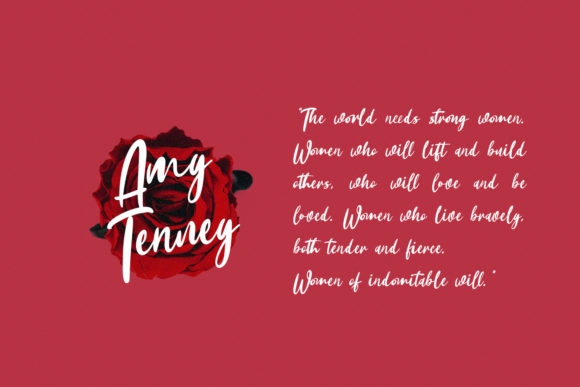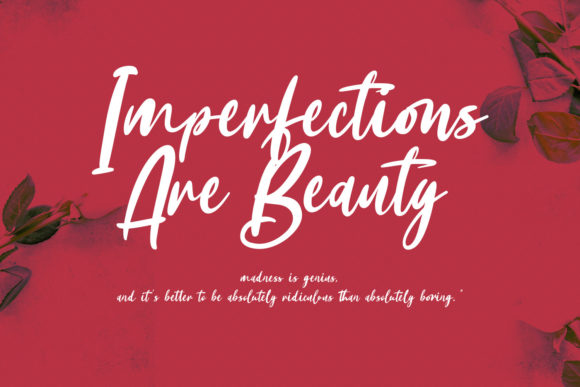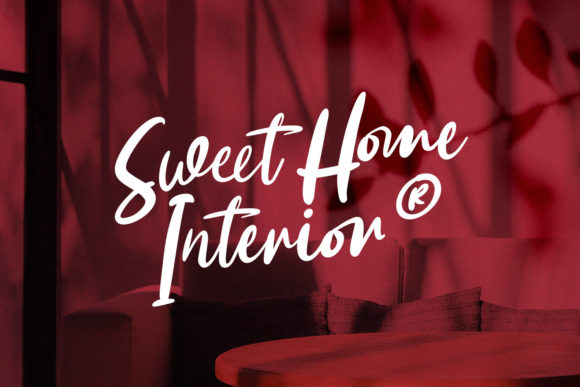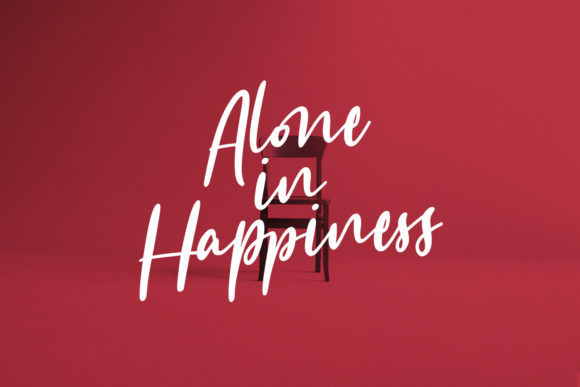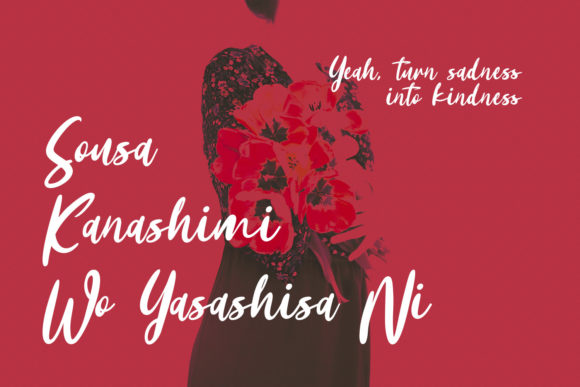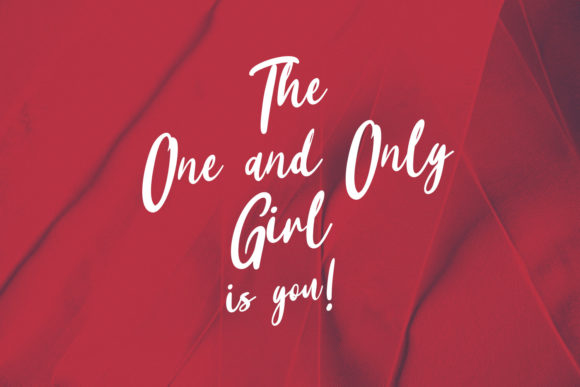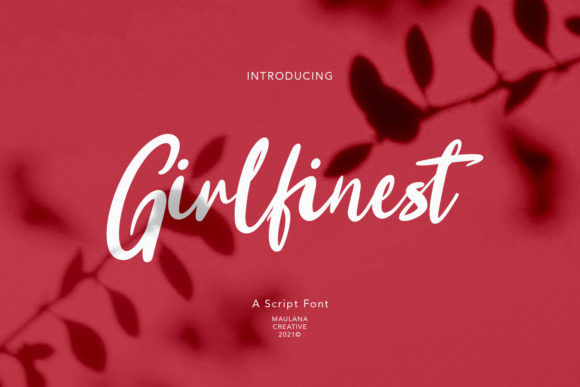
Discover the Charm of Girlfinest Font: Elevate Your Designs with a Lovely Handwritten Style
Are you on the hunt for a font that adds a personal touch to your designs? Look no further than Girlfinest Font, a beautiful handwritten font that is sure to capture the hearts of designers and crafters alike. With its well-rounded characters and cozy, friendly style, Girlfinest is the perfect choice for a wide range of projects, from branding and packaging to invitations and crafts.
The Characteristics of Girlfinest Font
Girlfinest Font boasts a unique and charming aesthetic that sets it apart from other fonts. Its well-rounded characters give it a soft, approachable feel, while its handwritten style adds a touch of warmth and personality. The font’s cozy and friendly vibe makes it perfect for designs that require a personal and intimate feel, such as:
- Branding and packaging for small businesses or personal projects
- DIY crafts and handmade products
- Blogging and social media graphics
Why Choose Girlfinest Font?
So, what makes Girlfinest Font a great choice for designers and crafters? Here are just a few reasons why:
- Versatility: Girlfinest Font is suitable for a wide range of projects and designs, making it a great addition to any designer’s toolkit.
- Uniqueness: With its handwritten style and well-rounded characters, Girlfinest Font is sure to add a touch of personality to your designs.
- Ease of use: Girlfinest Font is easy to read and works well in a variety of sizes, making it perfect for both digital and print designs.
- Customizability: As a digital font, Girlfinest can be easily customized to fit your design needs, from adjusting the size and color to adding effects and textures.
Tips for Using Girlfinest Font
To get the most out of Girlfinest Font, here are a few tips to keep in mind:
- Pair it with other fonts: Girlfinest Font works well when paired with other fonts, such as sans-serif fonts for a modern contrast or script fonts for added elegance.
- Experiment with colors: The soft, friendly vibe of Girlfinest Font makes it perfect for a wide range of colors, from pastels and brights to neutrals and metallics.
- Add texture and effects: To give your designs an extra boost, try adding texture or effects to Girlfinest Font, such as subtle shading or a distressed finish.
In conclusion, Girlfinest Font is a lovely handwritten font that is sure to become a favorite among designers and crafters. With its well-rounded characters, cozy and friendly style, and versatility, Girlfinest is perfect for a wide range of projects and designs. Whether you’re looking to add a personal touch to your branding, create beautiful invitations, or craft unique DIY projects, Girlfinest Font is the perfect choice. So why wait? Download Girlfinest Font today and start elevating your designs with its charming, handwritten style!
- Lovely handwritten font
- Well-rounded characters
- Cozy and friendly style
- Suitable for a wide range of projects and designs
- Easy to read and customize
Recommended for:
- Designers looking for a unique and versatile font
- Crafters and DIY enthusiasts
- Small business owners and entrepreneurs
- Anyone looking to add a personal touch to their designs